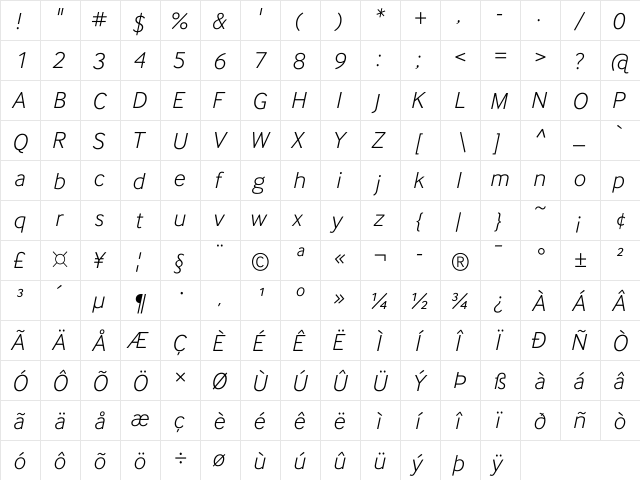
InterFace DaMa Lt Italic Font Preview
Design Context for InterFace DaMa Lt Typeface
InterFace DaMa Lt offers clean, dependable letterforms without strong stylistic allegiance, making it a practical choice for designers who need flexibility. Its italic angle brings a sense of urgency and motion to the letterforms. Its slender proportions lend an understated elegance to any composition.
Pro Tip: Try InterFace DaMa Lt for annotation and caption copy alongside an upright companion — the contrast in angle creates a dynamic but ordered typographic system.